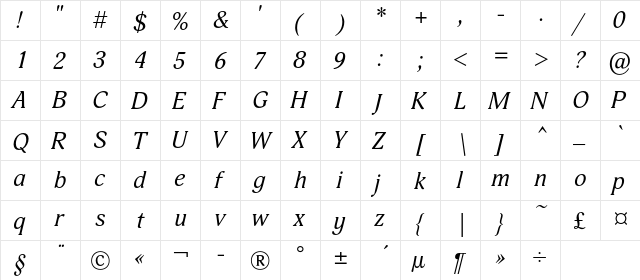
AdonisC Italic
Design Context for AdonisC Typeface
AdonisC is a composed and adaptable typeface that performs quietly and consistently across a wide range of design contexts. Its italic angle brings a sense of urgency and motion to the letterforms.
Pro Tip: Try AdonisC for annotation and caption copy alongside an upright companion — the contrast in angle creates a dynamic but ordered typographic system.